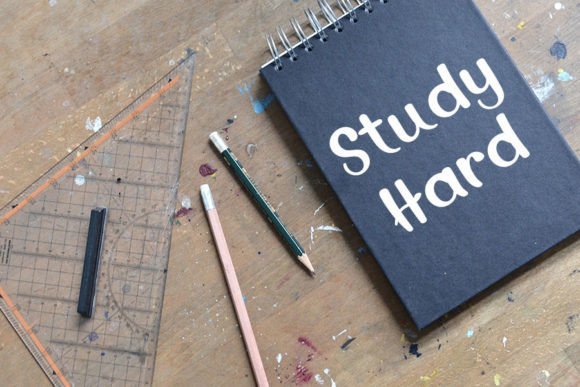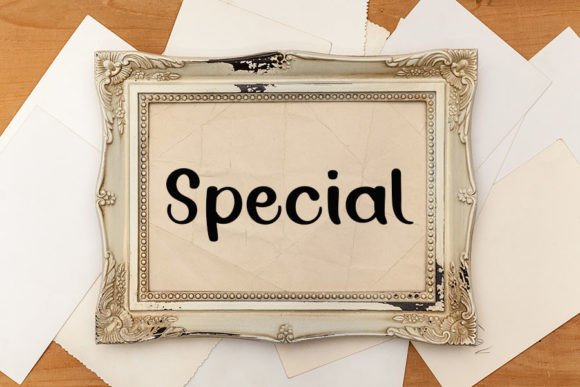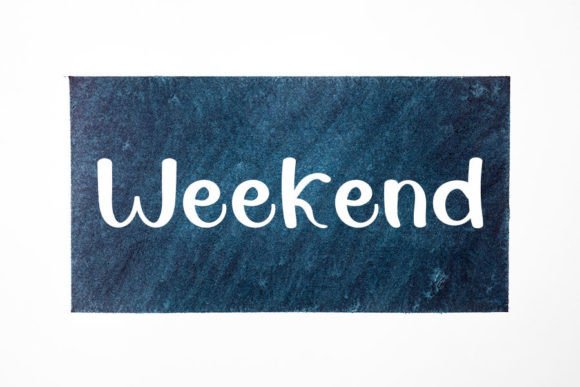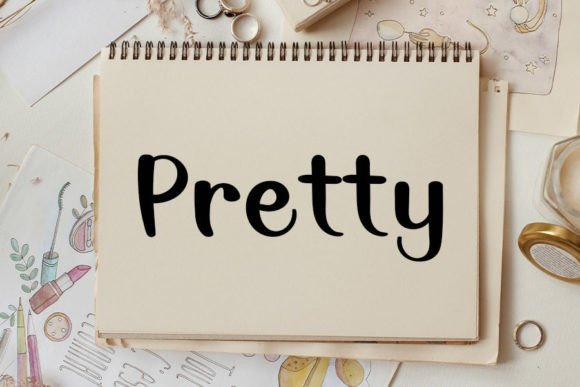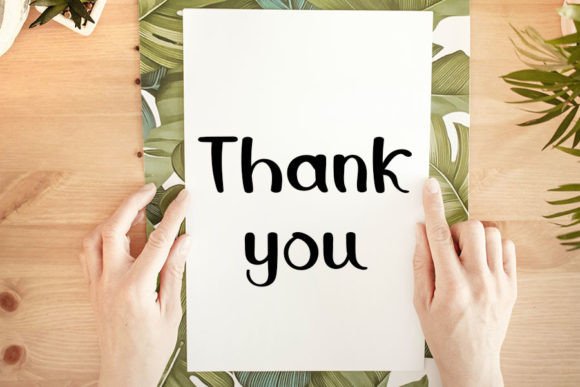
Introduction to Smally Font
Remember that moment when you stumbled upon the perfect font for your creative project, and it instantly elevated your design to the next level? For many designers, this is the moment that makes all the hard work worth it. Today, we’re excited to introduce you to Smally Font, a free download that’s about to become your go-to design resource.
Smally Font is more than just a pretty face; it’s a high-quality, free download that’s bursting with personality. This colorful handwritten font is carefully crafted with a touch of elegance, making it the perfect fit for all your logos, branding, social media posts, and crafty DIY projects. Whether you’re working on a design project with a transparent background or need a font that’s easy to read, Smally Font has got you covered.
Key Features of Smally Font
- High-quality, vector-based font design, ideal for creative projects
- Comes with a transparent background, making it easy to integrate with any design
- Unique, modern design that sets your creative project apart from the rest
Honest Review: Smally Font
I recently had the chance to work with the Smally Font for a creative project, and I’m excited to share my honest thoughts on this design resource. Overall, I was impressed with the quality and versatility of this font.
- High-quality design: The Smally Font is beautifully crafted with clean lines and a modern aesthetic.
- Transparent background: The font’s transparent background makes it easy to use on various design backgrounds.
- Limited character set: The font’s character set is relatively limited, which may be a drawback for designers who need to create complex text-based content.
- No bold or italic versions: The font only comes in a regular weight, which may not be suitable for projects that require bold or italic text.
Overall, I’m impressed with the Smally Font’s design and usability. While it has some limitations, it’s a great resource for designers working on creative projects who need a high-quality font with a transparent background. With a little creativity, I’m confident that the Smally Font can be a valuable addition to any design toolkit.
To get the most out of Smally Font, use it in combination with other design elements to create a visually appealing design. Experiment with different font sizes, colors, and styles to find the perfect look for your creative project.
Smally Font is perfect for a variety of creative projects, including logos, graphics, presentations, and documents. Its high-quality design and transparent background make it easy to use in a variety of design applications.